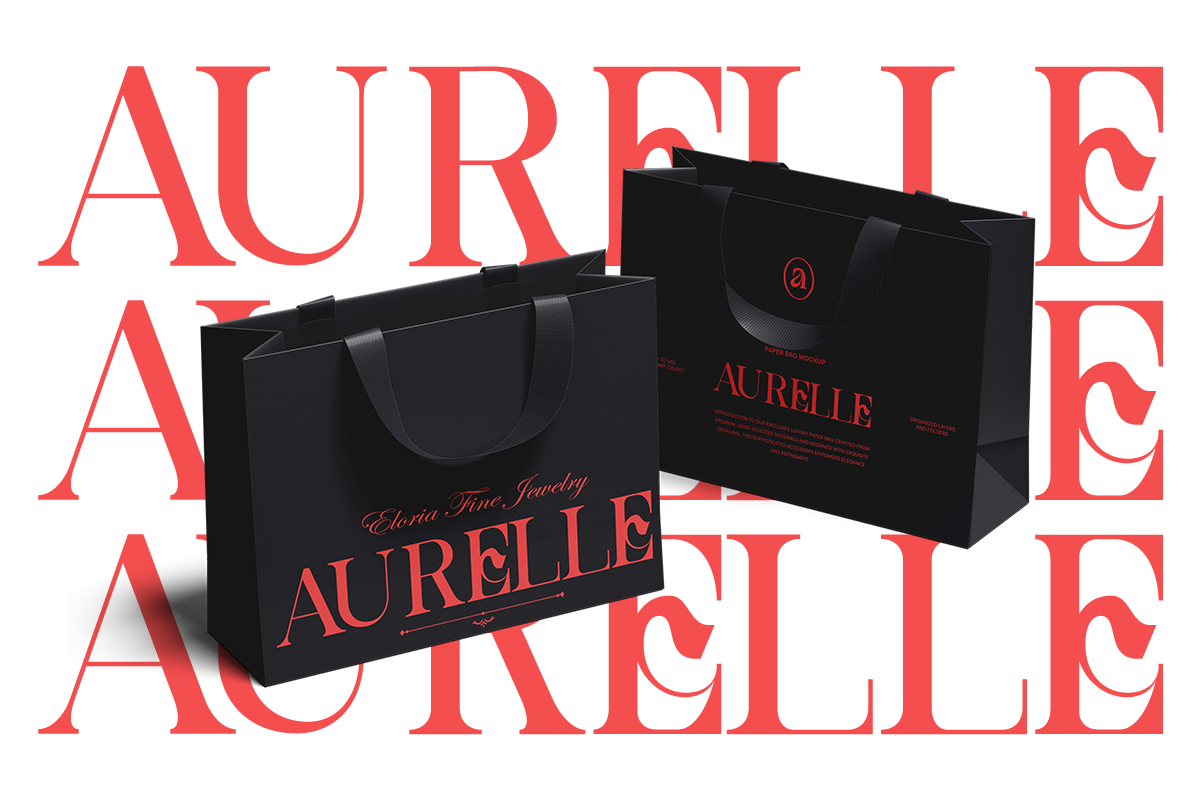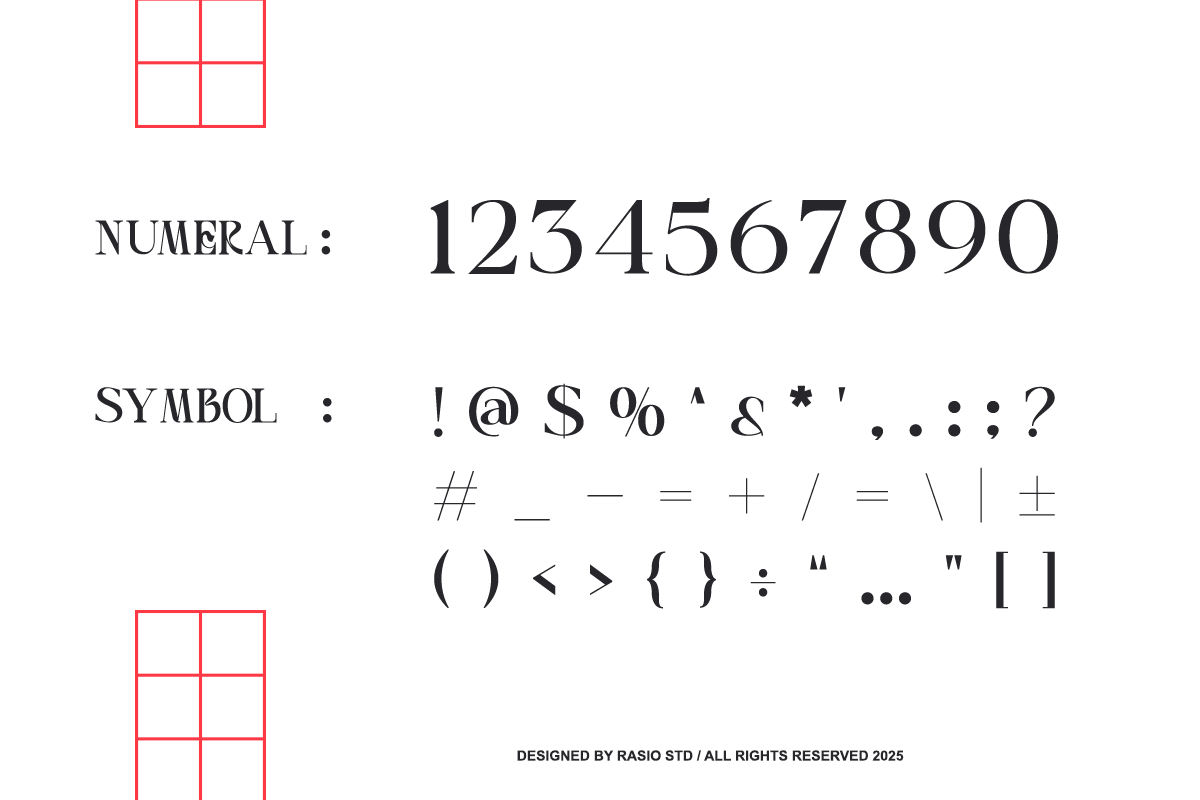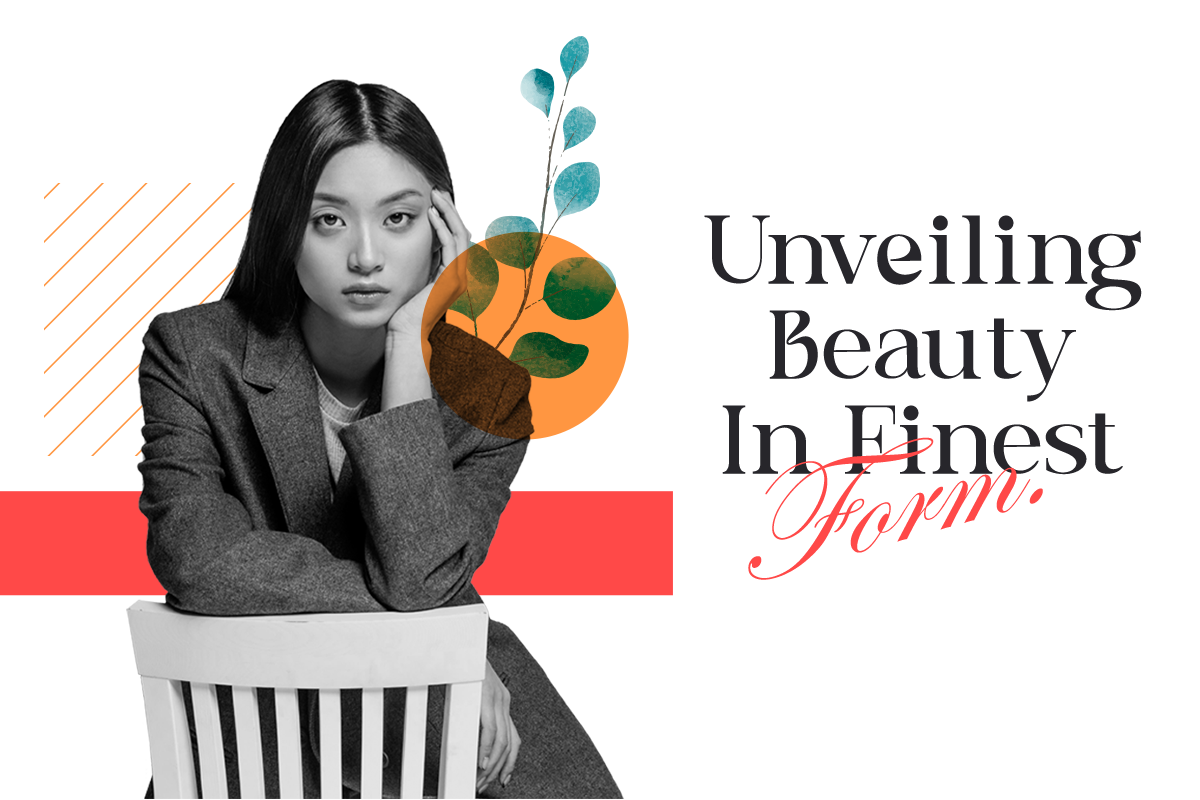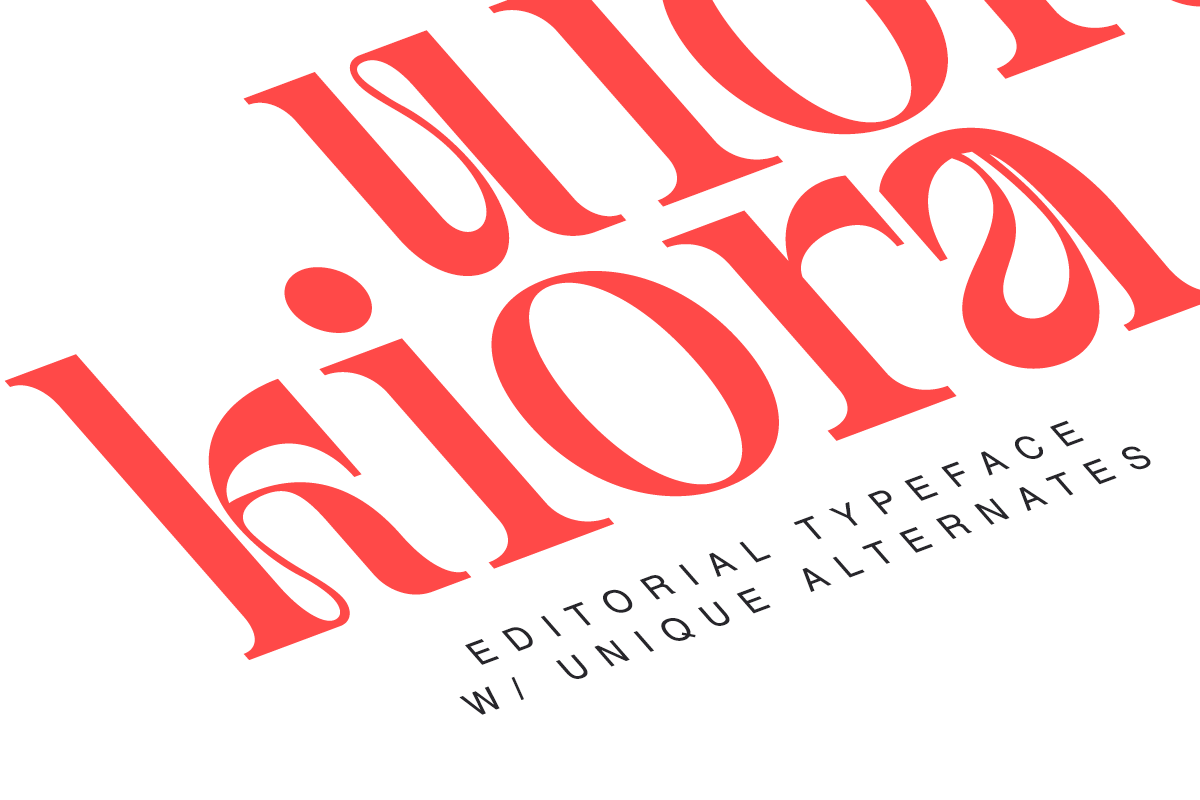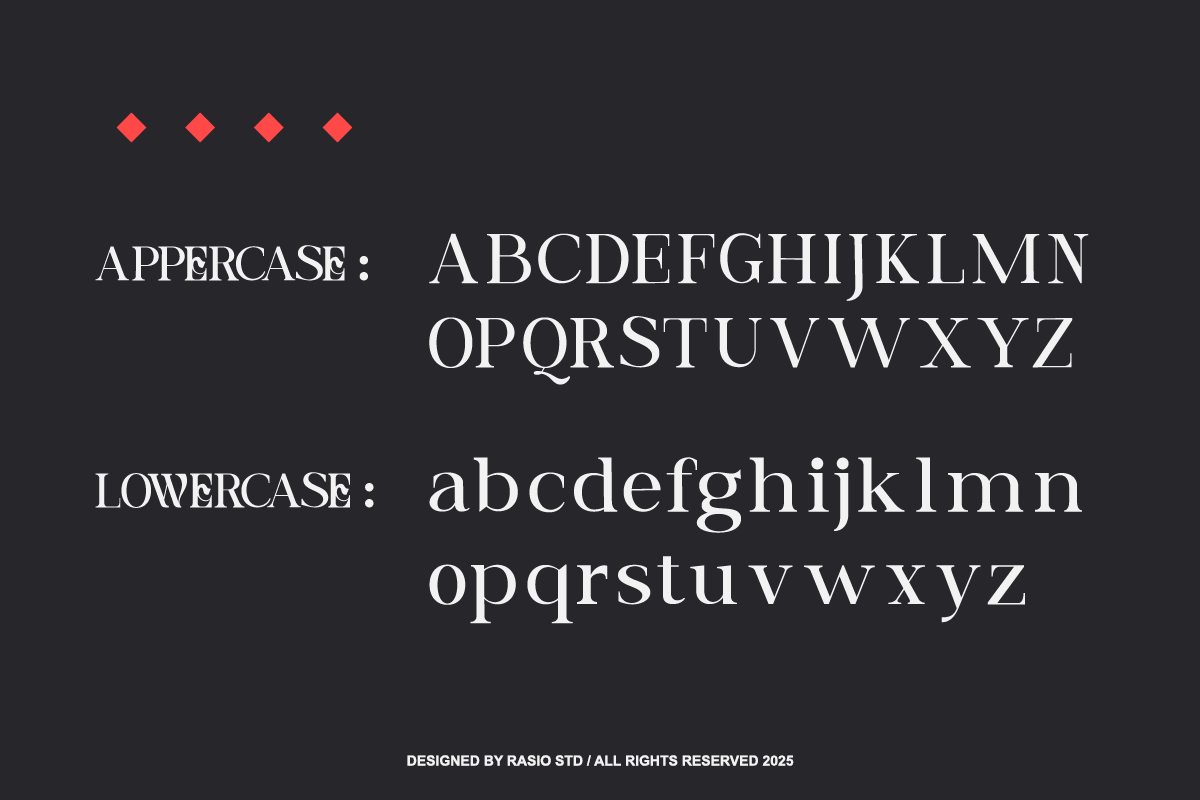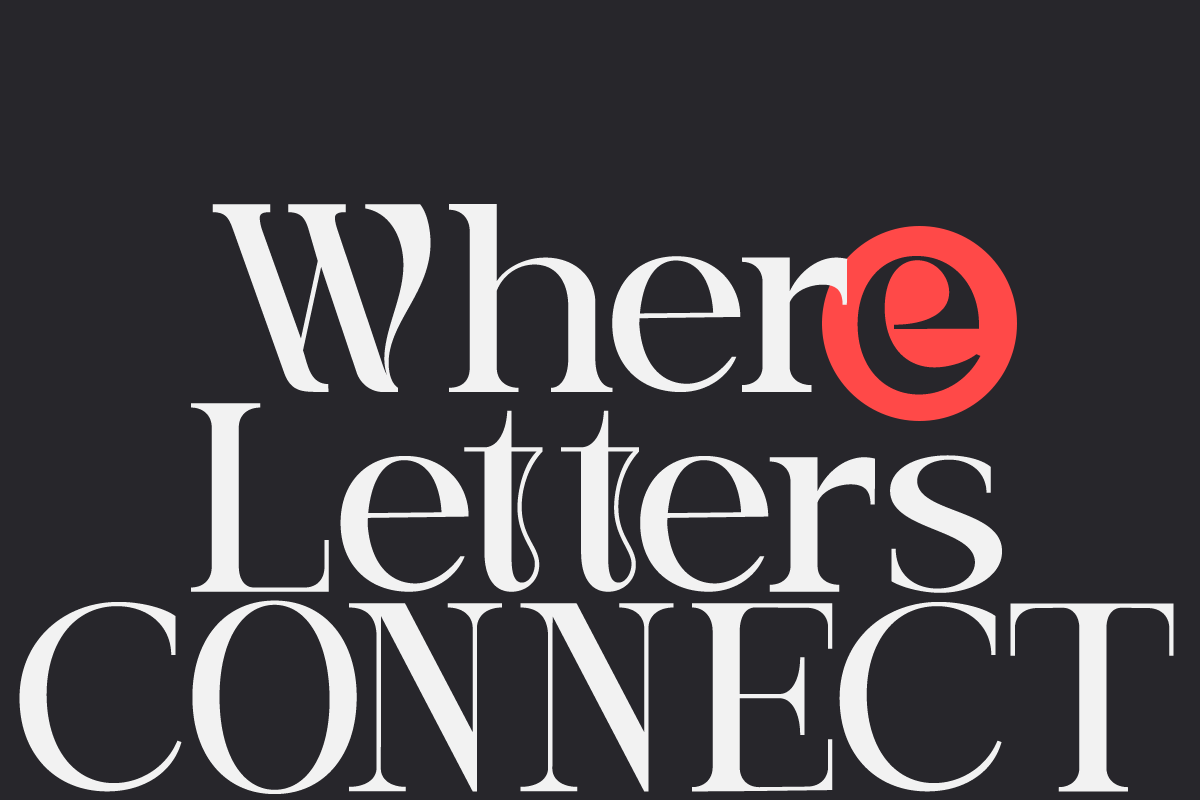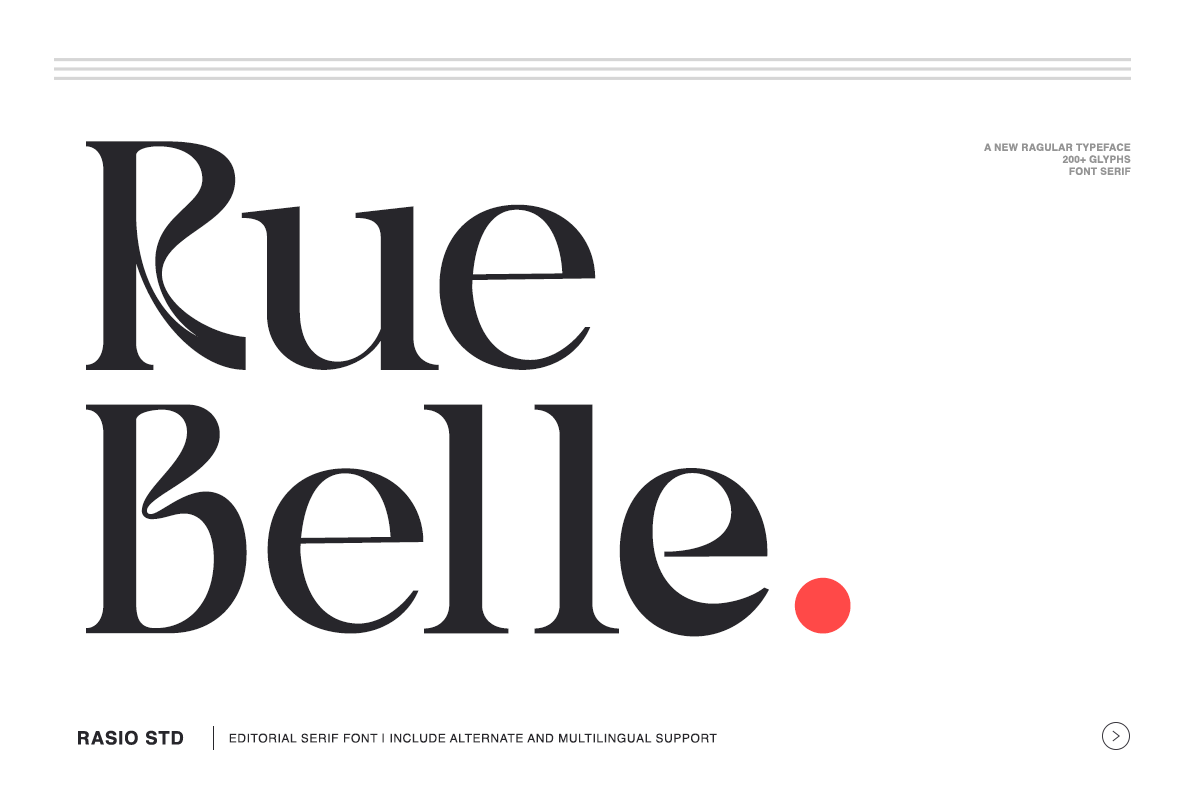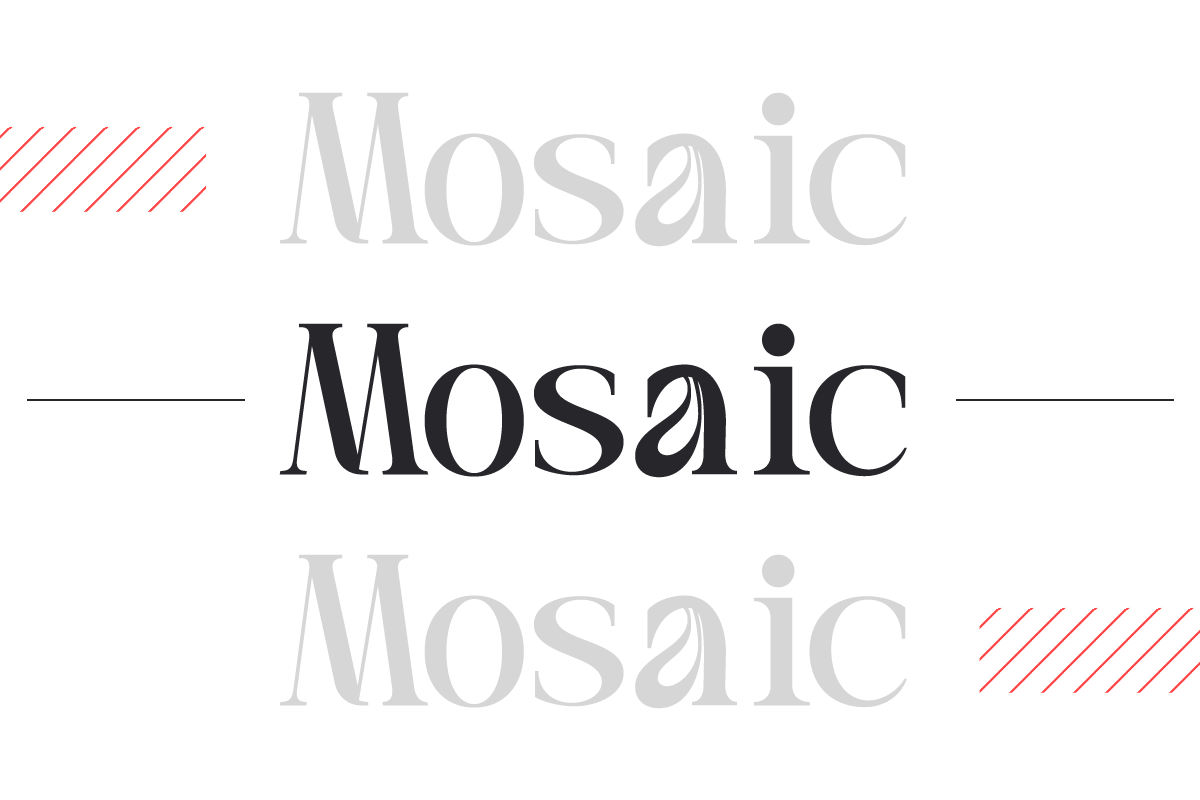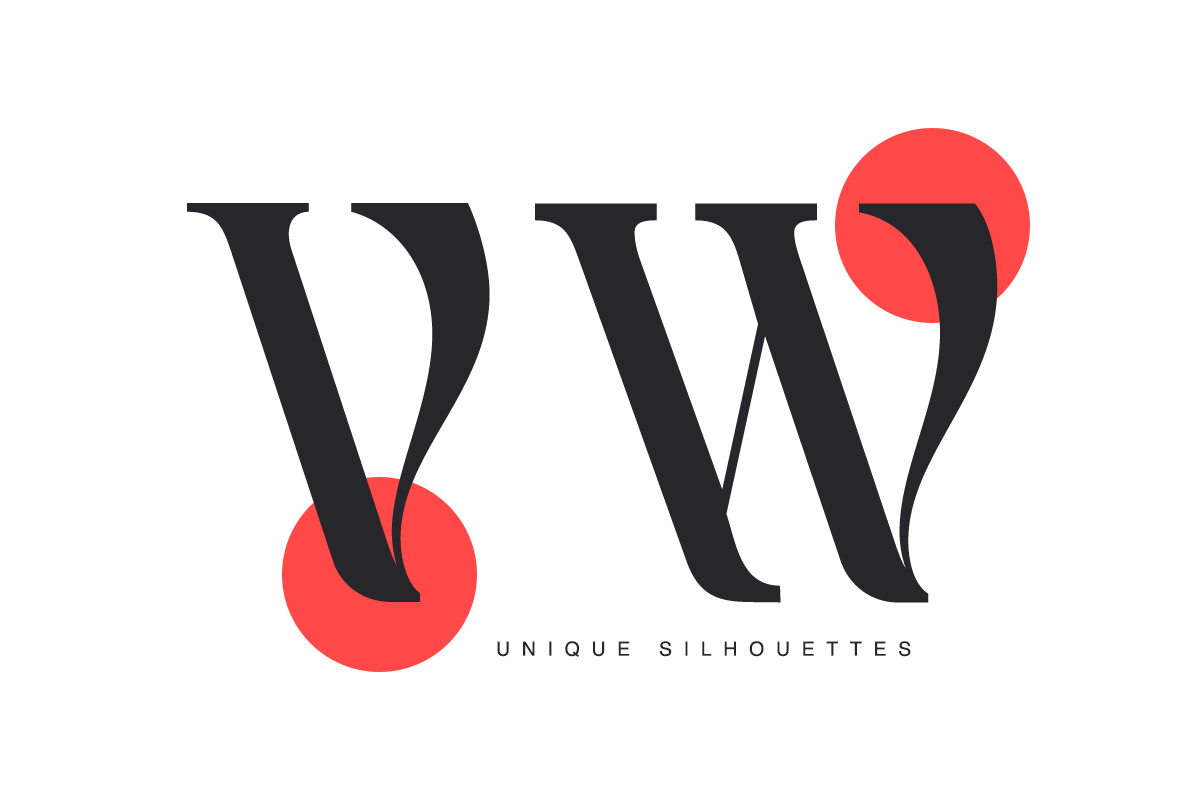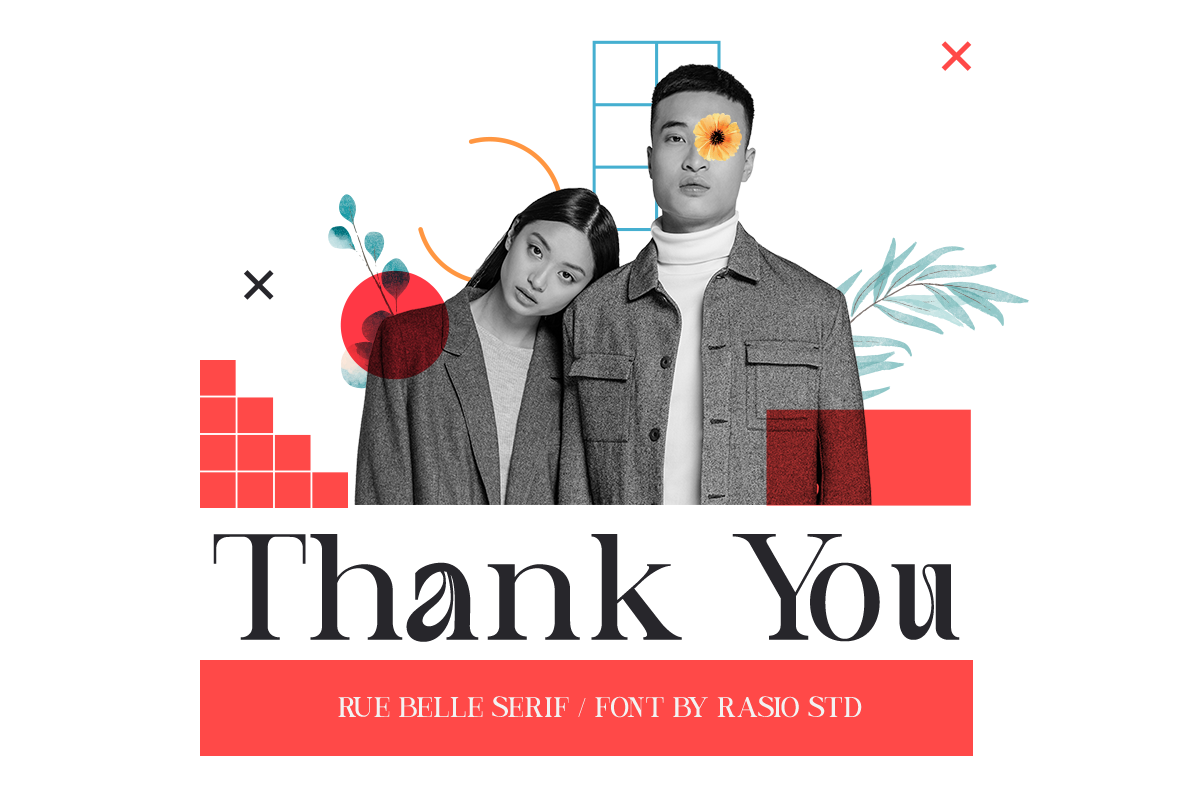
Rue Belle Editorial Serif Font
Rue Belle is a refined editorial serif typeface crafted with elegant proportions and distinctive letter silhouettes. The design features high contrast strokes, sharp serifs, and sculpted curves that create a sophisticated, fashion-forward presence. It includes uppercase, lowercase, numerals, punctuation, stylistic alternates, and multilingual support.
Rue Belle is highly relevant for fashion editorials, luxury branding, beauty and cosmetic packaging, boutique logos, magazine layouts, book covers, wedding stationery, and premium marketing materials. Its refined contrast and graceful forms make it ideal for designs that require an elegant, timeless, and high-end typographic statement.
- Refined editorial serif design with sculpted, high-contrast letterforms
- Elegant stroke transitions that create a graceful and luxurious feel
- Sharp, tapered serifs paired with smooth flowing curves for clarity
- Distinctive silhouettes and stylish alternates for expressive headlines
- Carefully balanced spacing optimized for impactful display and premium layouts
- Luxury brand identity systems that need an elegant and refined presence
- Editorial magazines, fashion lookbooks, and high-end publishing layouts
- Beauty, jewelry, perfume, and boutique product packaging design
- Wedding invitations, event stationery, and sophisticated branding materials
- Social media campaigns, posters, and headlines that require graceful typography
Rue Belle blends dramatic contrast and timeless serif beauty